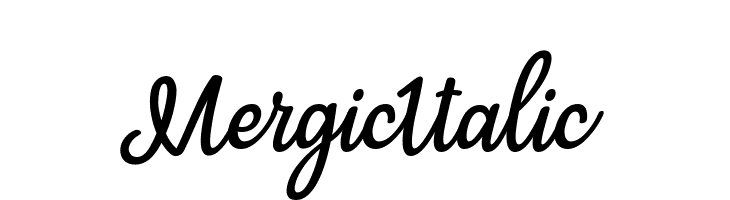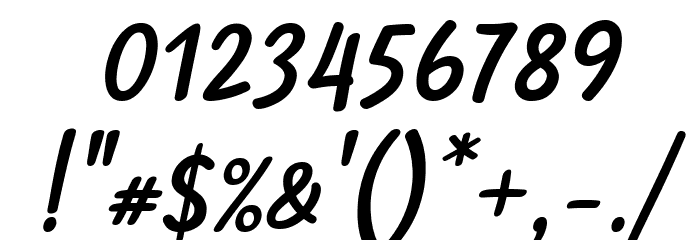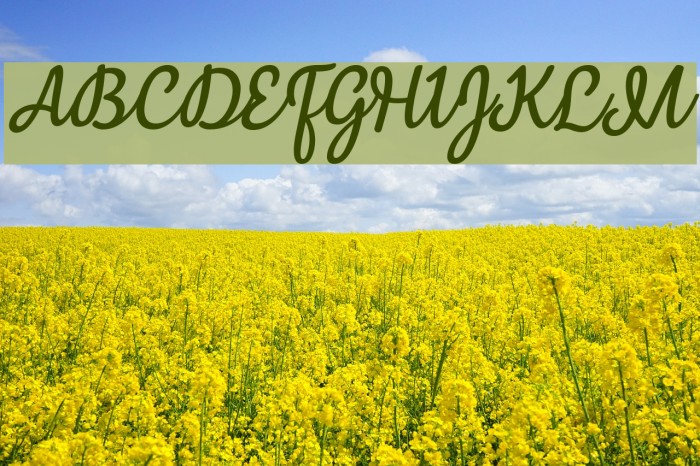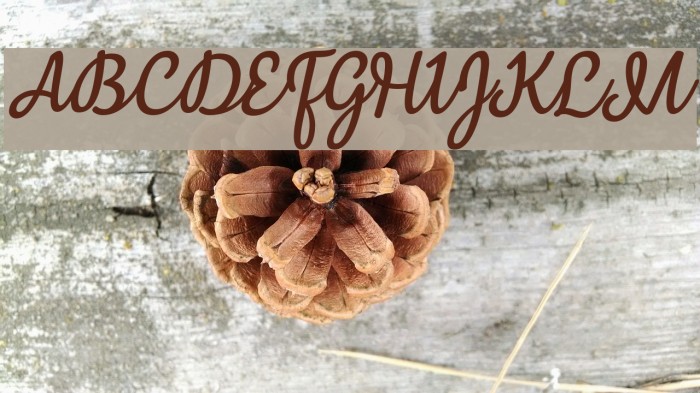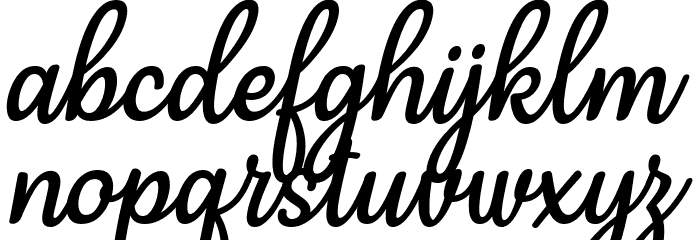
Mergic Italic Font
This font features a flowing, cursive style with a smooth and elegant appearance. The letters are connected, giving it a handwritten feel that is both sophisticated and approachable. The strokes are consistent in thickness, providing a balanced and harmonious look. The uppercase letters are slightly more ornate, while the lowercase letters maintain a simpler, more streamlined form. The numerals and special characters are designed to match the overall aesthetic, ensuring a cohesive appearance across all text. This font is ideal for projects that require a personal touch or a sense of elegance.
A flowing, cursive font with a smooth, handwritten style.
• Proposed Projects: Ideal for wedding invitations, greeting cards, personal branding, and elegant signage.
• Category: Script
• Overall Style: Elegant, Handwritten
• Use Case: Logos, Invitations, Personal Branding